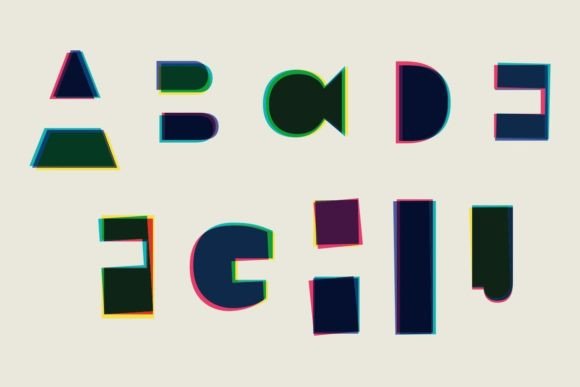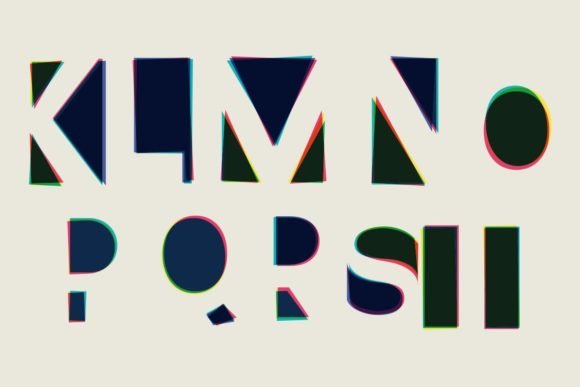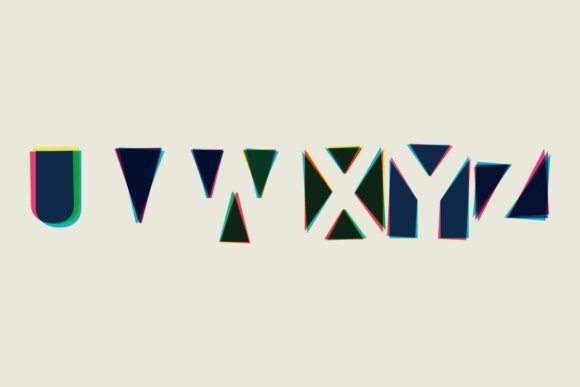
Reverso Offset Font
About Reverso Offset Font
Reverso Offset is a truly unique all-caps color font that offers a distinct and artistic take on the mis-registration printing commonly seen in high-volume offset printing. This font turns printing mistakes into a captivating art form, allowing you to create designs that are truly one-of-a-kind. Here’s why Reverso Offset stands out:
1. Mis-Registration Emulation: Reverso Offset font accurately emulates the mis-registration effect found in offset printing. This effect occurs when multiple layers of ink do not align perfectly, resulting in a slightly shifted and overlapping appearance. By intentionally incorporating this effect into the font design, Reverso Offset brings an edgy and unconventional look to your typography.
2. Unique and Distinctive Design: The mis-registration effect in Reverso Offset font adds a unique and distinctive touch to your designs. It creates a sense of visual interest and unpredictability, making your text stand out and catch the viewer’s attention. This font allows you to break away from traditional, perfectly aligned typography and embrace a more artistic and unconventional aesthetic.
3. Versatile Applications: Reverso Offset font can be used across various print mediums and design projects. Whether you’re creating designs for t-shirts, mugs, posters, flyers, or any other print medium, this font adds a touch of creativity and uniqueness to your artwork. Its unconventional style can help your designs stand out in a sea of more traditional typography.
4. Artistic Appeal: Reverso Offset font turns printing mistakes into an art form. Its unconventional and slightly distorted appearance creates a visually interesting and dynamic effect. By using Reverso Offset, you can infuse your designs with a sense of artistic flair, adding depth and character to your typographic compositions.
5. High-Quality Output: Despite its intentional mis-registration effect, Reverso Offset font is designed to ensure high-quality output. It retains its legibility and readability while still offering a unique visual aesthetic. This means that you can confidently use this font for both display text and smaller-sized copy without compromising the overall quality of your design.
6. Endless Creativity: Reverso Offset font provides you with endless creative possibilities. Whether you want to create a vintage-inspired design, a grungy and urban look, or simply add an element of surprise and uniqueness to your typography, this font allows you to experiment and push the boundaries of traditional design.
When using Reverso Offset font, it’s important to consider the overall design and ensure that the mis-registration effect complements your intended aesthetic. Additionally, be mindful of legibility, especially when using smaller font sizes or longer blocks of text.
In summary, Reverso Offset is an exceptional all-caps color font that transforms printing mistakes into an art form. Its mis-registration effect adds a unique and captivating touch to your designs, making them stand out and leaving a lasting impression. Embrace the unconventional and let Reverso Offset font unleash your creativity across various print mediums.